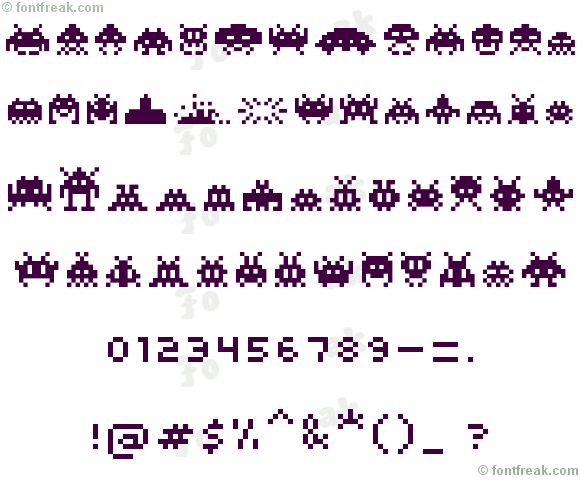
Pixel Invaders Regular
About Pixel Invaders Regular
Pixel Invaders Regular is a distinctive display font designed by Frederic Rich in 2012, characterized by its unique pixelated aesthetic that captures the essence of retro gaming. This font falls into the decorative category, making it an excellent choice for projects that aim to evoke nostalgia or a playful vibe. The visual characteristics of Pixel Invaders Regular include bold, blocky letterforms with a consistent stroke weight, providing a unified appearance. The design features a lack of contrast, emphasizing its pixelated nature, which is both eye-catching and reminiscent of early video game graphics. The spacing is tight yet balanced, enhancing readability while maintaining its quirky charm.
This font is particularly well-suited for various creative applications. It shines in video game-themed branding, where its retro appeal can draw in fans of the genre. Additionally, it is an excellent choice for merchandise, such as t-shirts and posters that celebrate gaming culture. Graphic designers can leverage Pixel Invaders Regular for website headers or logos that seek to capture an adventurous or fun spirit. Furthermore, it can be effectively utilized in social media graphics aimed at engaging younger audiences. Small business owners looking to differentiate their brand can also benefit from this unique typeface, especially if they operate in the entertainment or creative sectors.
Targeting graphic designers, small business owners, and content creators, Pixel Invaders Regular font free download offers a unique tool for those seeking to infuse their projects with a distinct personality. Its playful yet straightforward design makes it versatile enough to enhance a range of creative endeavors. Ultimately, this font stands out for its nostalgic charm and bold visual identity, making it a perfect choice for anyone looking to make a memorable impression.